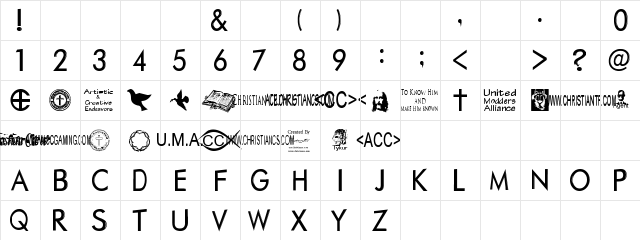
Christian Crew Regular
| Designer | Thamyris |
Design Context for Christian Crew Typeface
Christian Crew takes a measured approach to typography — its balanced proportions and neutral character make it a reliable workhorse for both digital and print work.